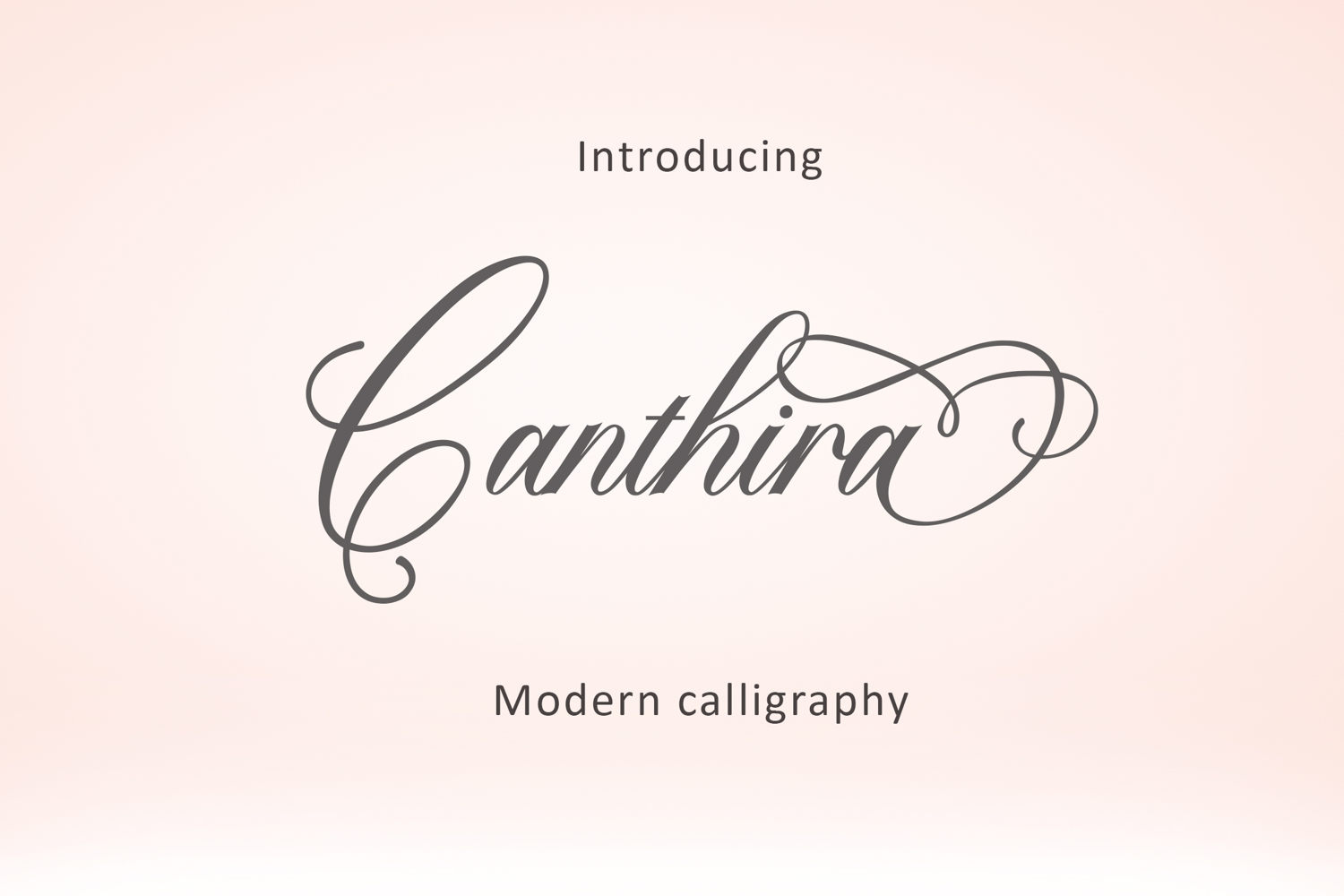
Canthira
This script font is beautifully infused with striking swashes and purposeful curves, imparting a romantic, luxe vibe to any design it graces. Carefully designed, each character in the Canthira font ensures smooth conjunctions and a rhythmic flow that resembles that of natural handwriting while maintaining an air of finesse.
Ideal for matrimonial invites, brand imaging, logo creation, social media content, impactful quotes, product packaging, and magazine layout, Canthira enhances your text with a sophisticated, handwritten allure while ensuring optimum readability. It is your go-to font for creating not just a feminine ambiance but an upscale visual appeal as well.
Become captivated by Canthira’s classy spirit and the elegant persona this modern calligraphy brings to your typography. otf